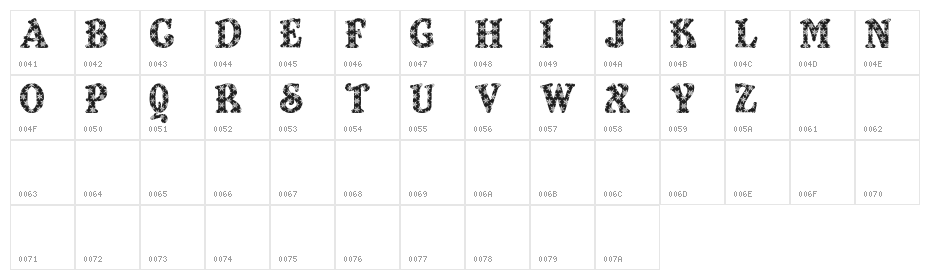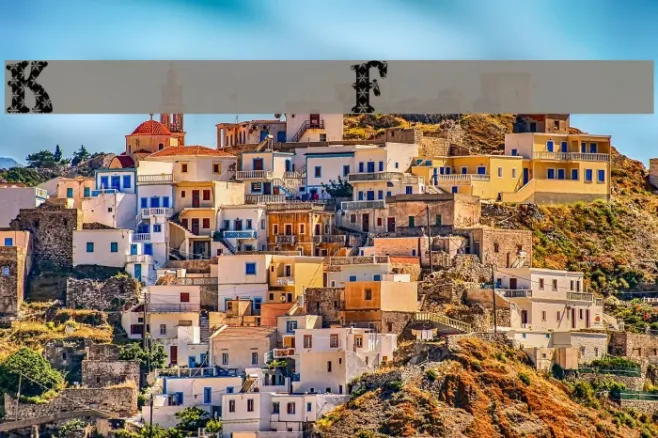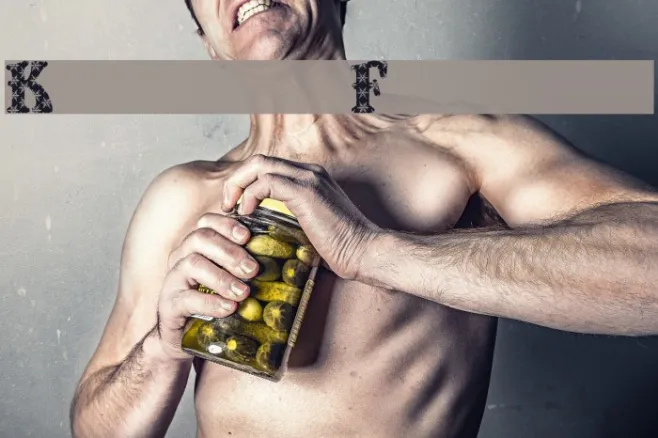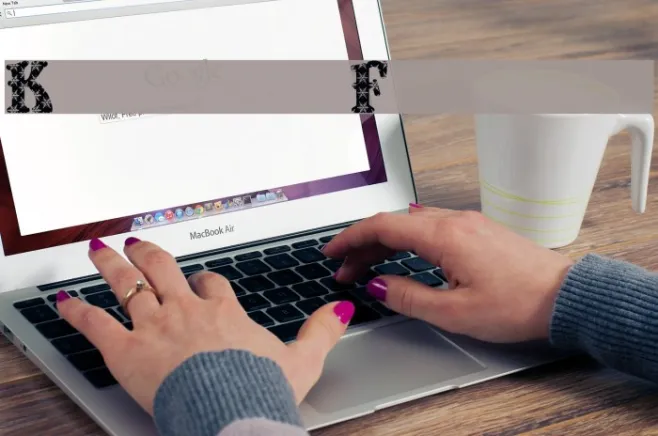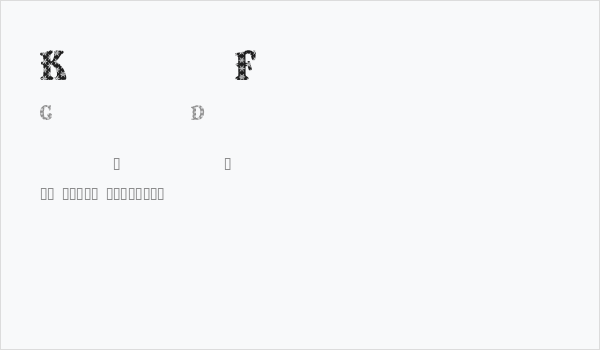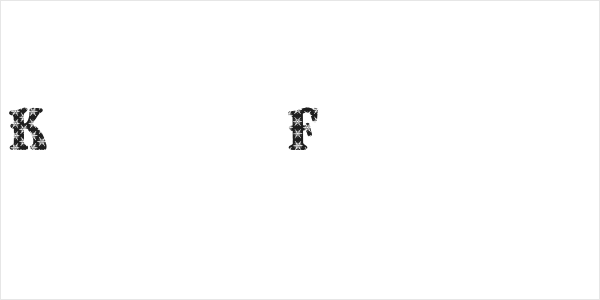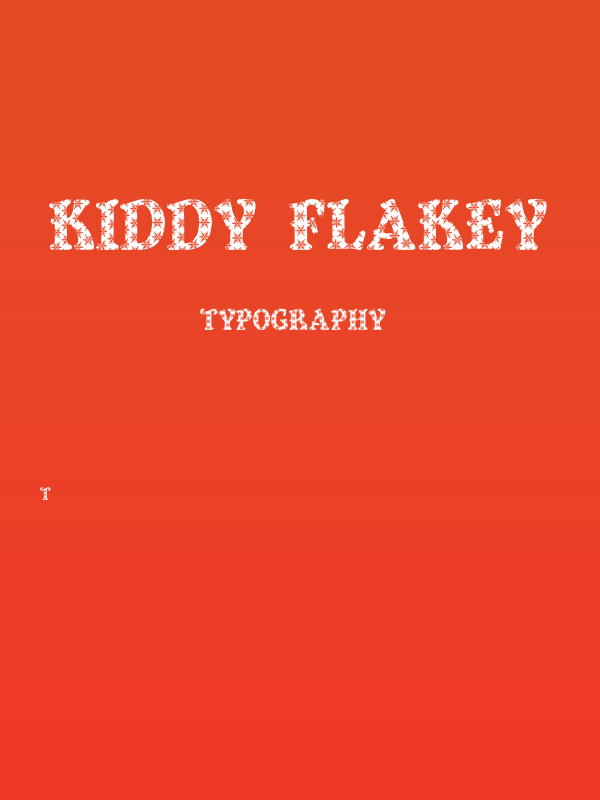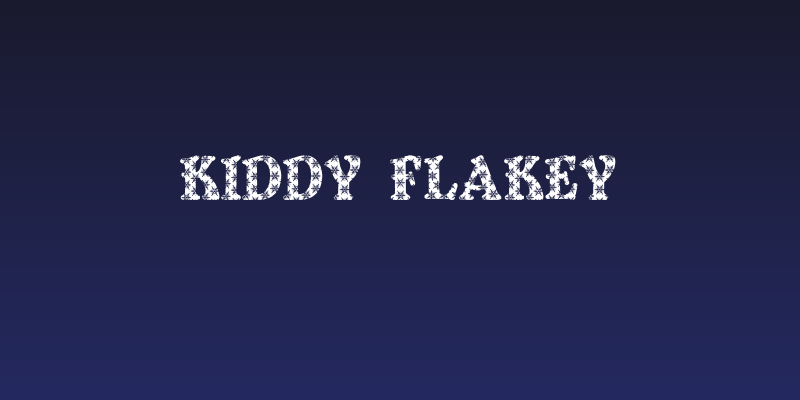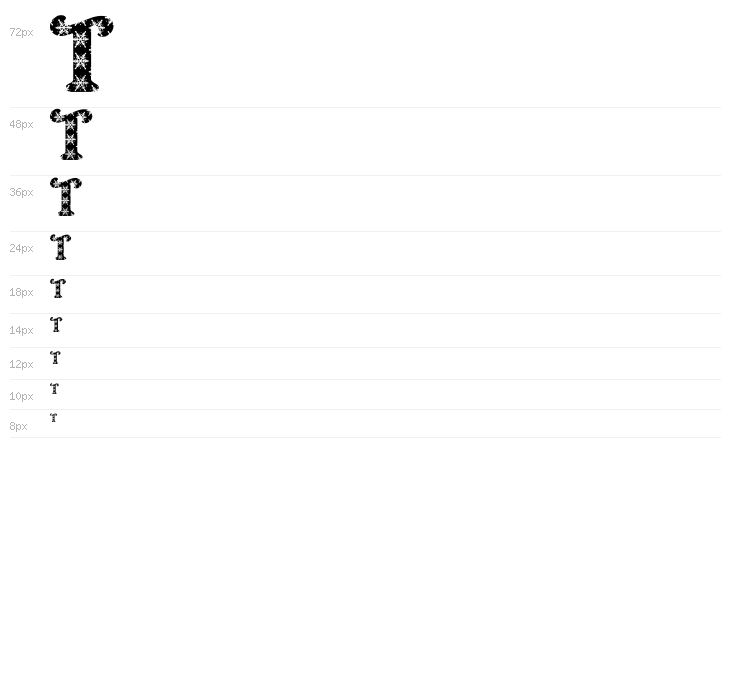
Kiddy Flakey Font
Kiddy Flakey Description
This font features a playful and textured design, with each letter appearing as if it is crafted from a flakey or distressed material. The uppercase letters are bold and prominent, showcasing a unique pattern that adds a whimsical and artistic flair. The absence of lowercase letters and numbers suggests a focus on decorative use. The special characters maintain the same textured style, ensuring consistency across the font. This font is ideal for projects that require a fun and eye-catching aesthetic.
| Proposed Projects | Ideal for children's book covers, playful posters, and creative branding projects. |